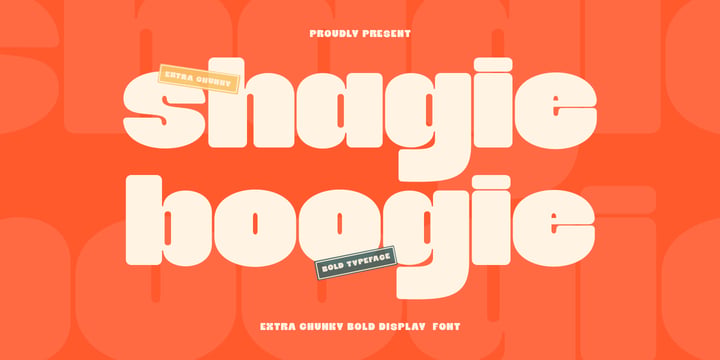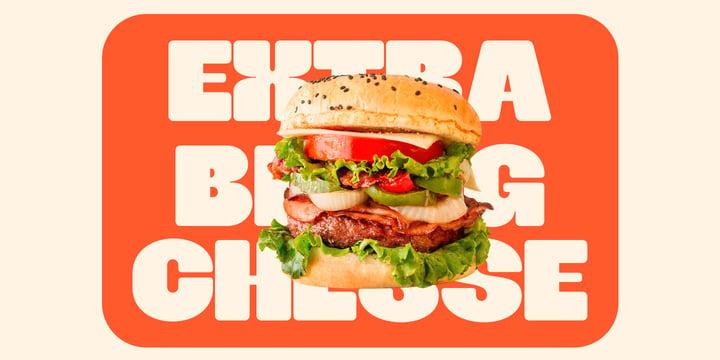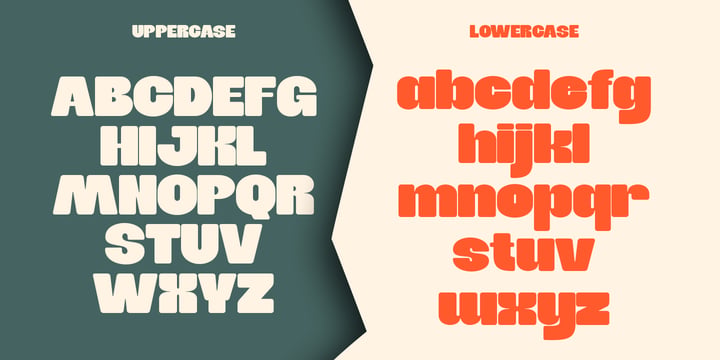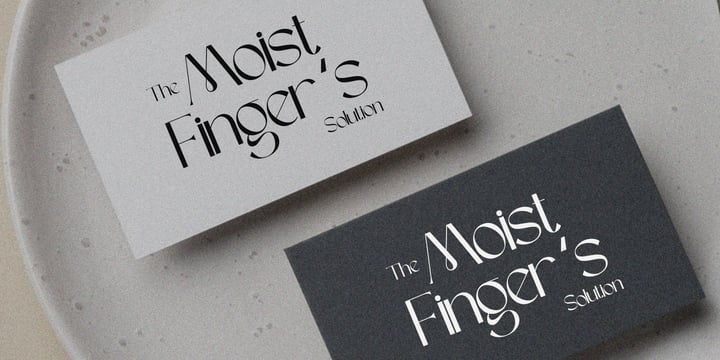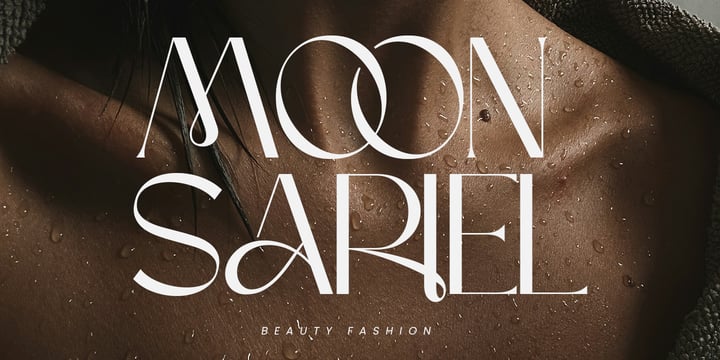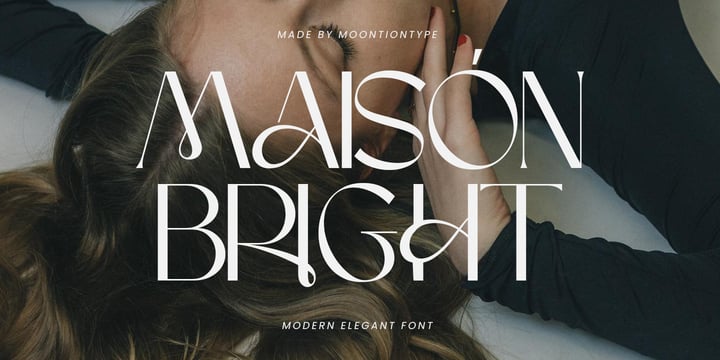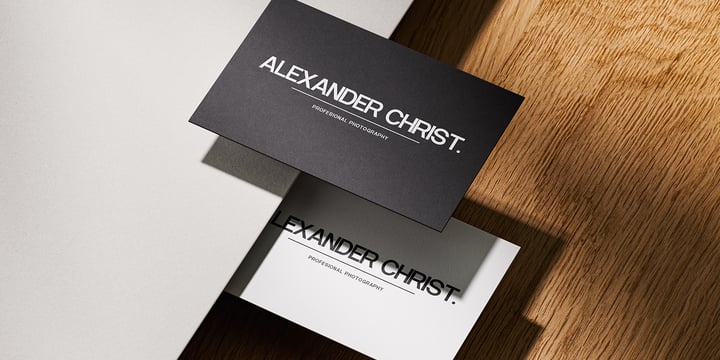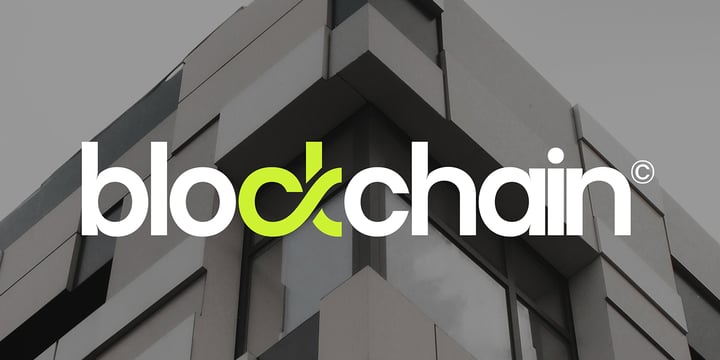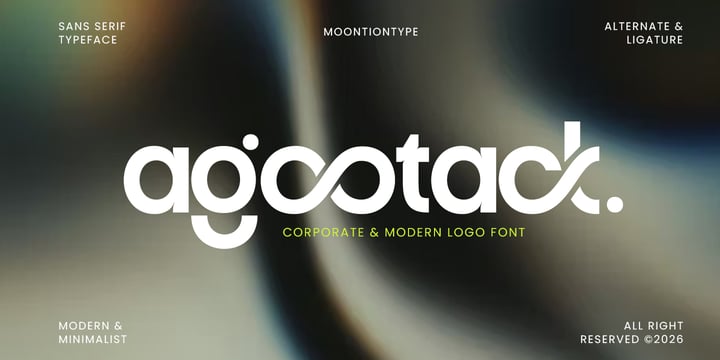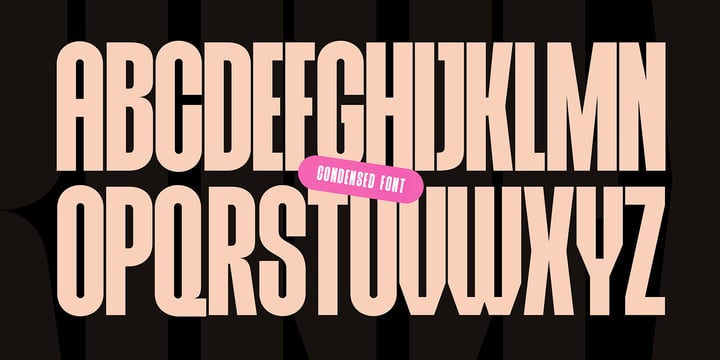
Dinda Nur Dwiyanti
Dinda Nur Dwiyanti is an Indonesian graphic designer and typeface designer based in Malang, Indonesia. She began her journey in graphic design in 2019 while studying at a vocational high school (SMK), where she developed a strong foundation in visual communication and design principles.
After approximately three years of exploring various design disciplines, Dinda discovered her primary passion in typeface design. She then decided to focus her career in typography and joined a type design company in Malang, where she gained hands-on experience in crafting and refining letterforms for diverse design needs.
In 2025, Dinda founded Moontiontype as a platform to further develop her own typeface creations with greater creative freedom and personal expression. She is passionate about exploring expressive yet functional letterforms, aiming to create high-quality typefaces that are both distinctive and adaptable for the global market.